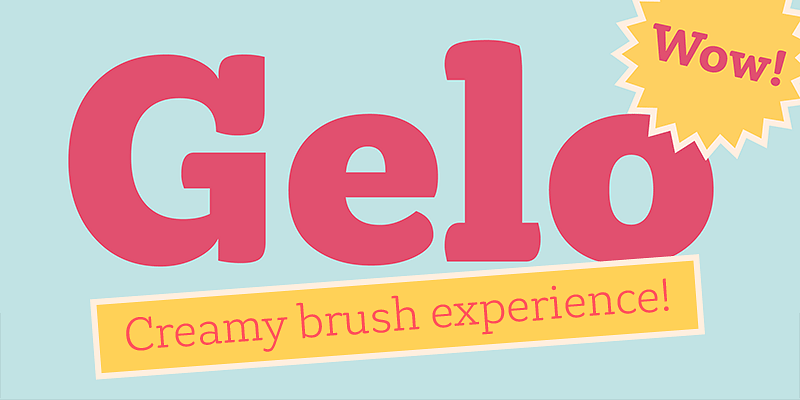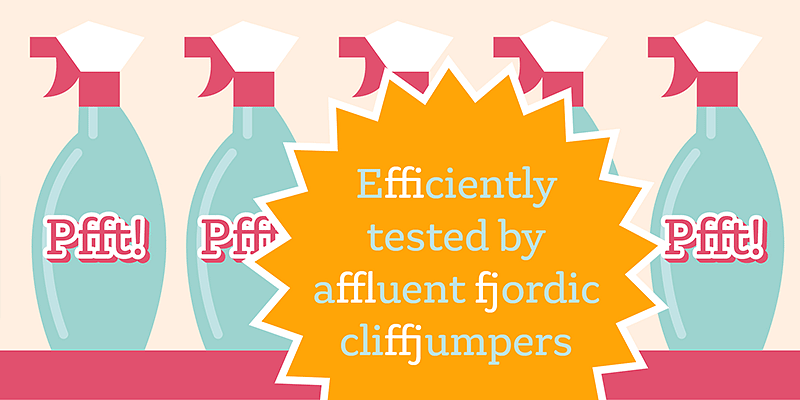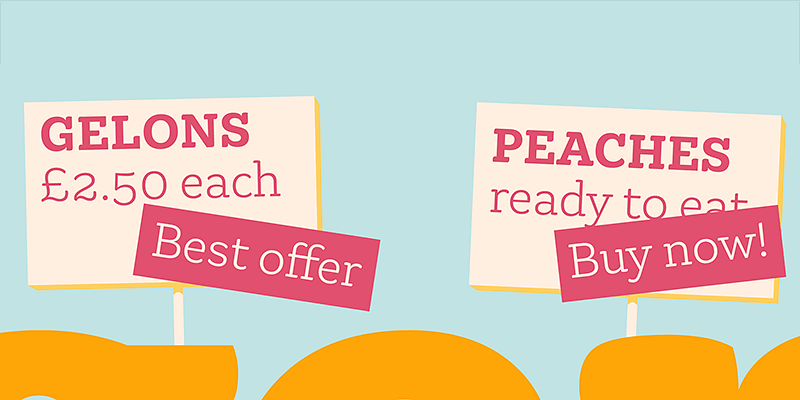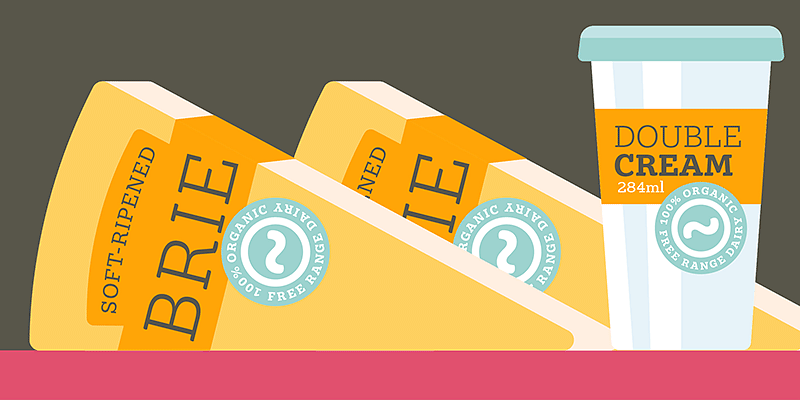
Gelo combines the elegance and playfulness of brush lettering with the structure and versatility of a slab serif to create an expressive and versatile design which works great in print and digital.